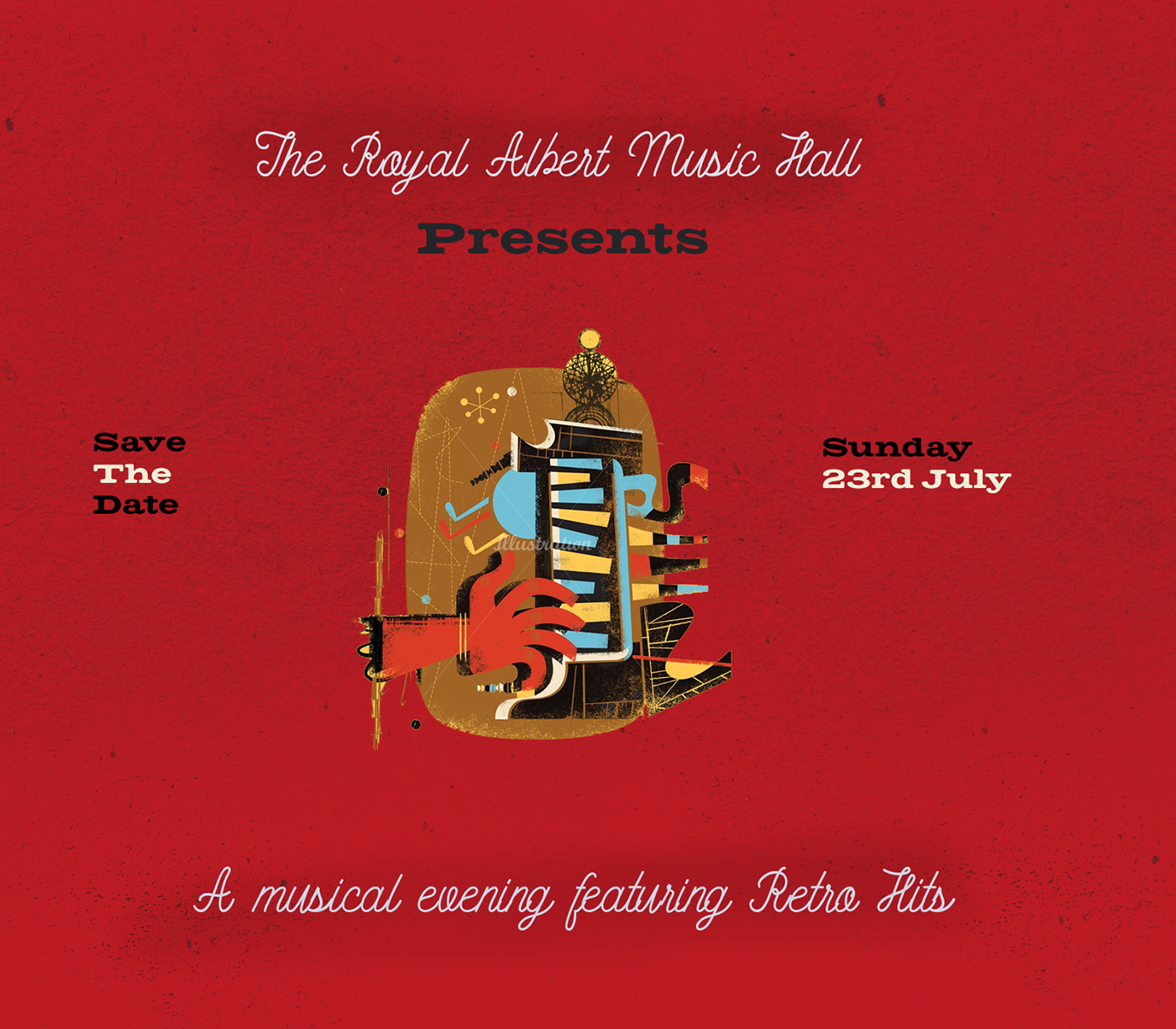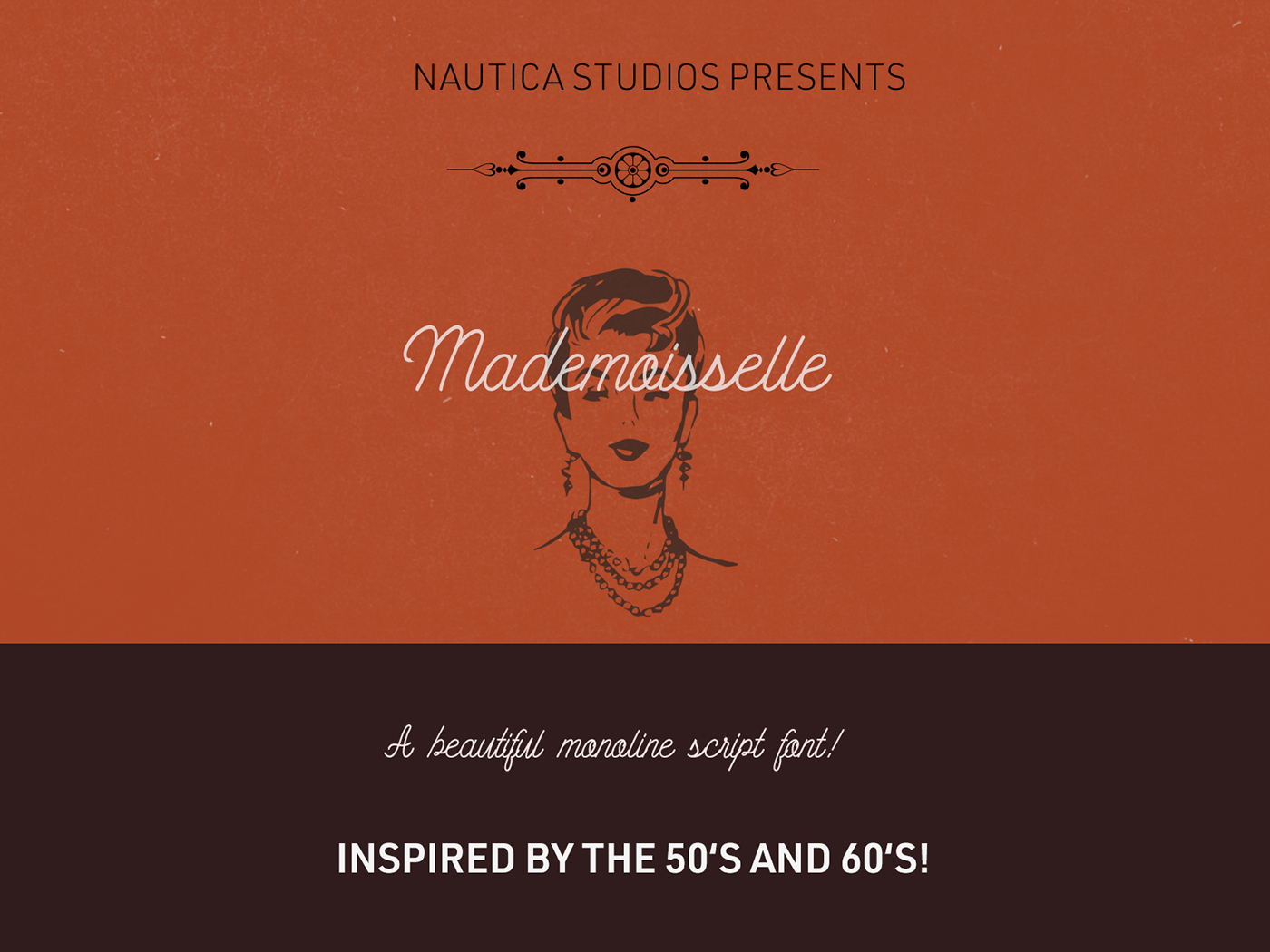
Mademoiselle Script Font
Mademoiselle Script Typeface (FREE)
Introducing Mademoiselle script typeface. Mademoiselle Script designed by ARITRA DAS, and share by Nautica Studios. MademoiselleNS is a free beautiful mono-line script font with a retro/vintage vibe.It primarily draws its inspiration form the 50’s and 60’s era.It is suitable for a wide range of purposes from lettering to feminine logos.It also includes numerals and special characters.